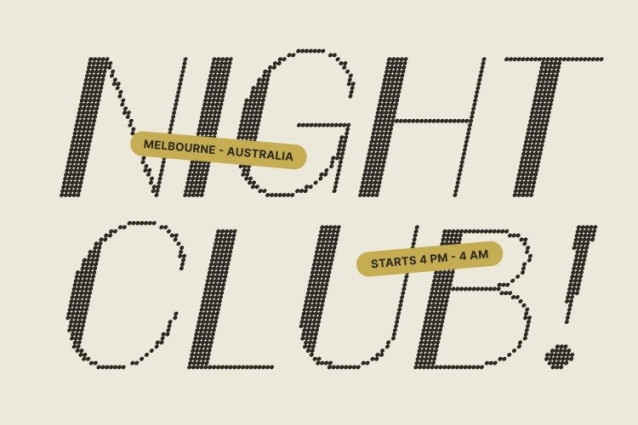
Geizla Disco Font This is a modern sans serif font crafted with sleek lines, clean proportions, and a polished geometric structure. Its contemporary design creates a stylish and pretty appearance, making it perfect for projects that value clarity with a fashionable edge. The simplicity of its form ensures strong legibility while maintaining a graceful, modern charm.
Shimmering Disco Effect for Extra Glamour
Elevated by a radiant disco effect, brings dynamic energy and visual sparkle to your typography. The shimmering overlay adds movement and vitality, giving each character a glamorous, lively touch that instantly enhances the mood of any layout. This unique feature transforms ordinary text into a glowing, attention-grabbing statement.
Perfect for Branding, Posters, Party Designs, and Editorials
Whether you’re creating chic branding, vibrant posters, party invitations, magazine spreads, or stylish creative work, delivers the modern appeal you need. Its blend of clean form and sparkling texture makes it ideal for fashion campaigns, beauty products, nightlife promotions, and any design that aims to captivate viewers at first glance.
A Contemporary Typeface Made to Shine
This font balances modern simplicity with decorative brilliance, offering a versatile typographic solution for designers who want to push beyond the ordinary. Use it to craft visuals that feel trendy, eye-catching, and full of personality.